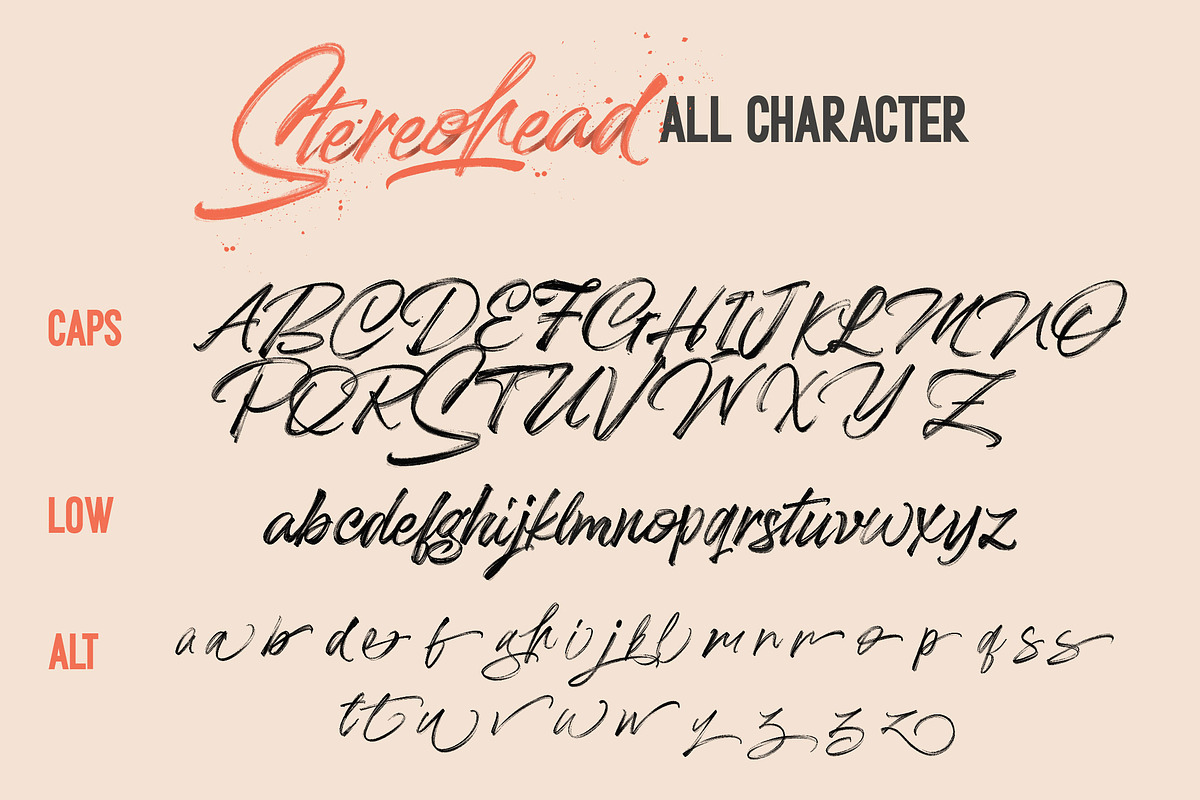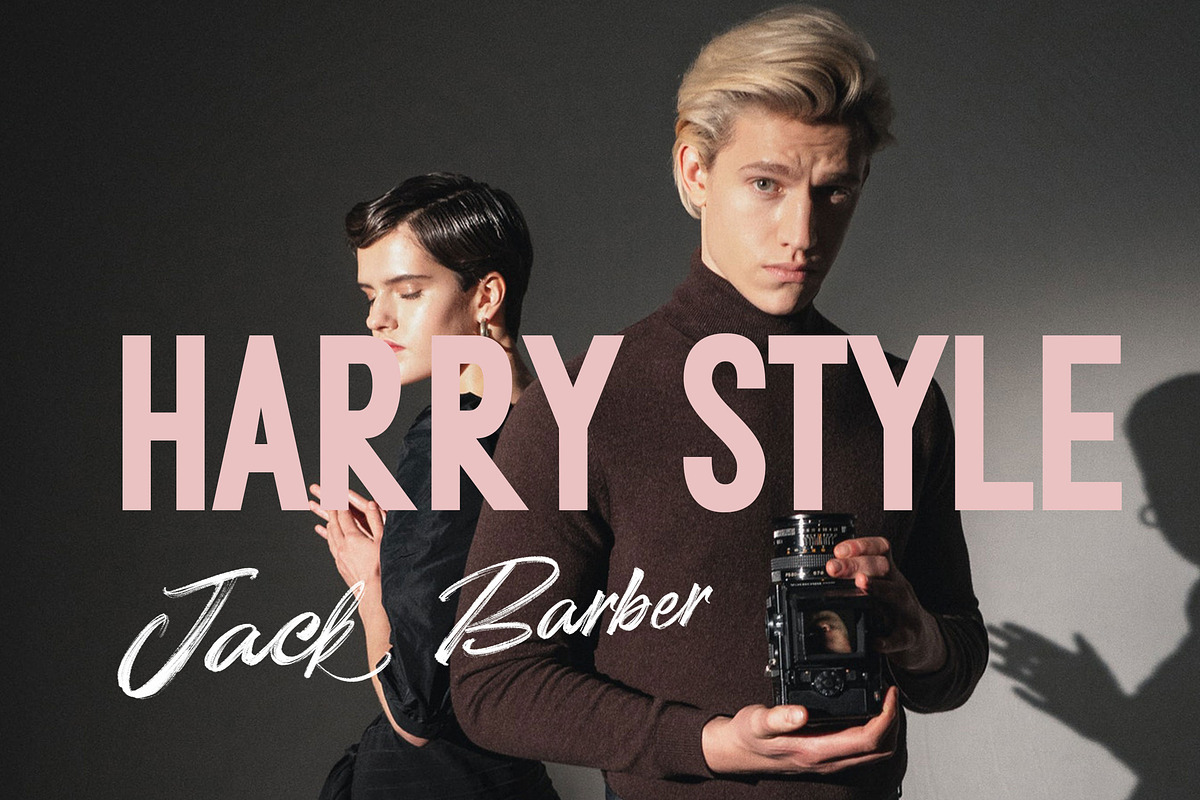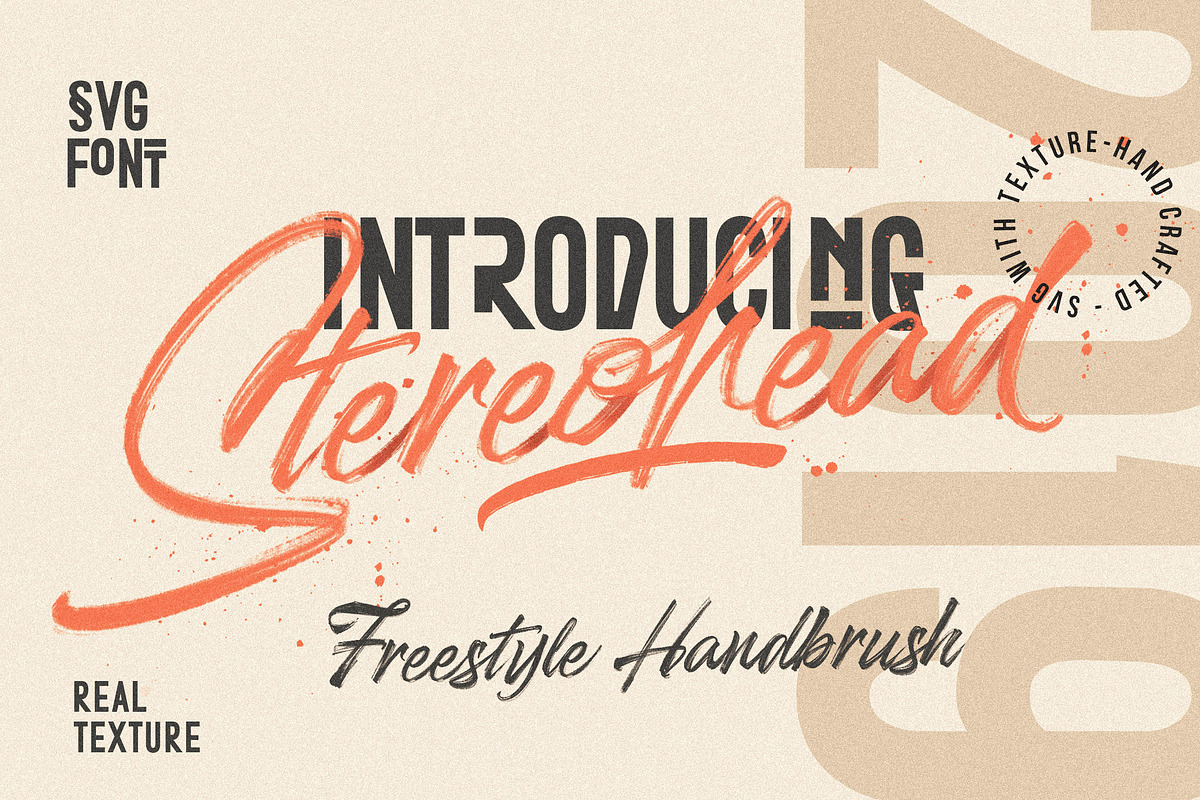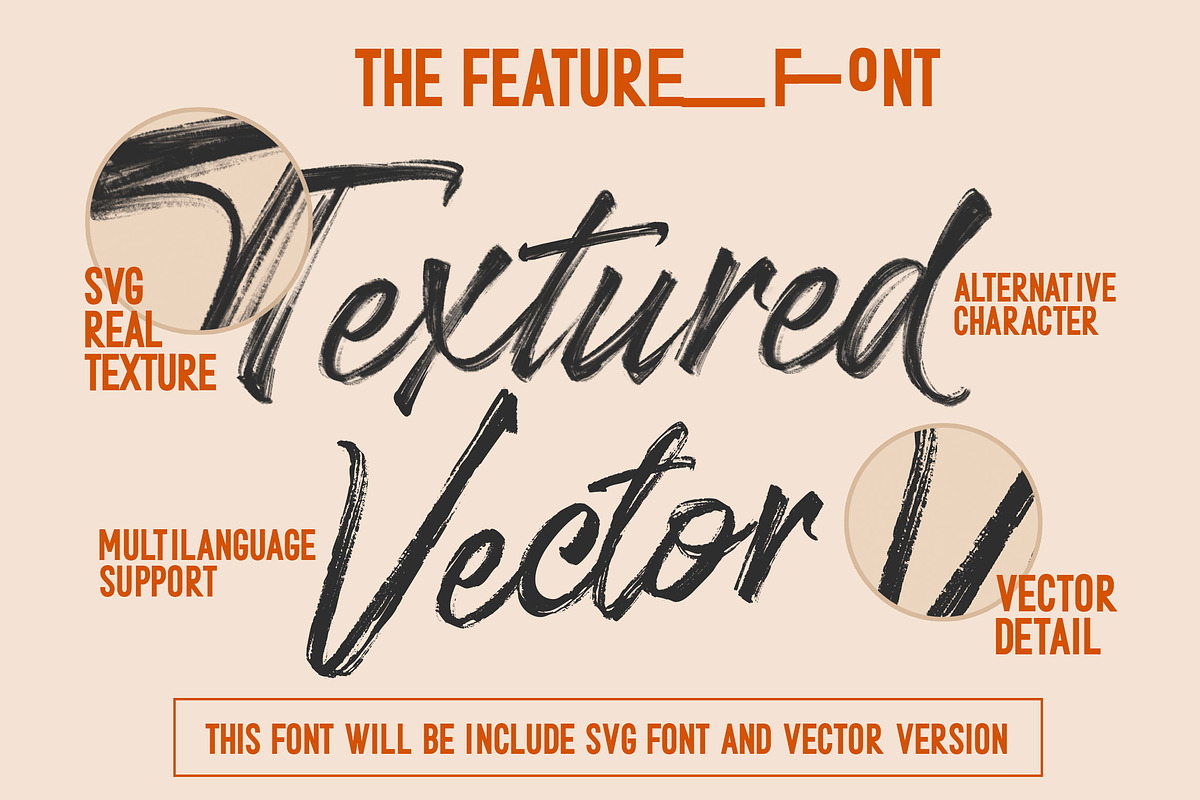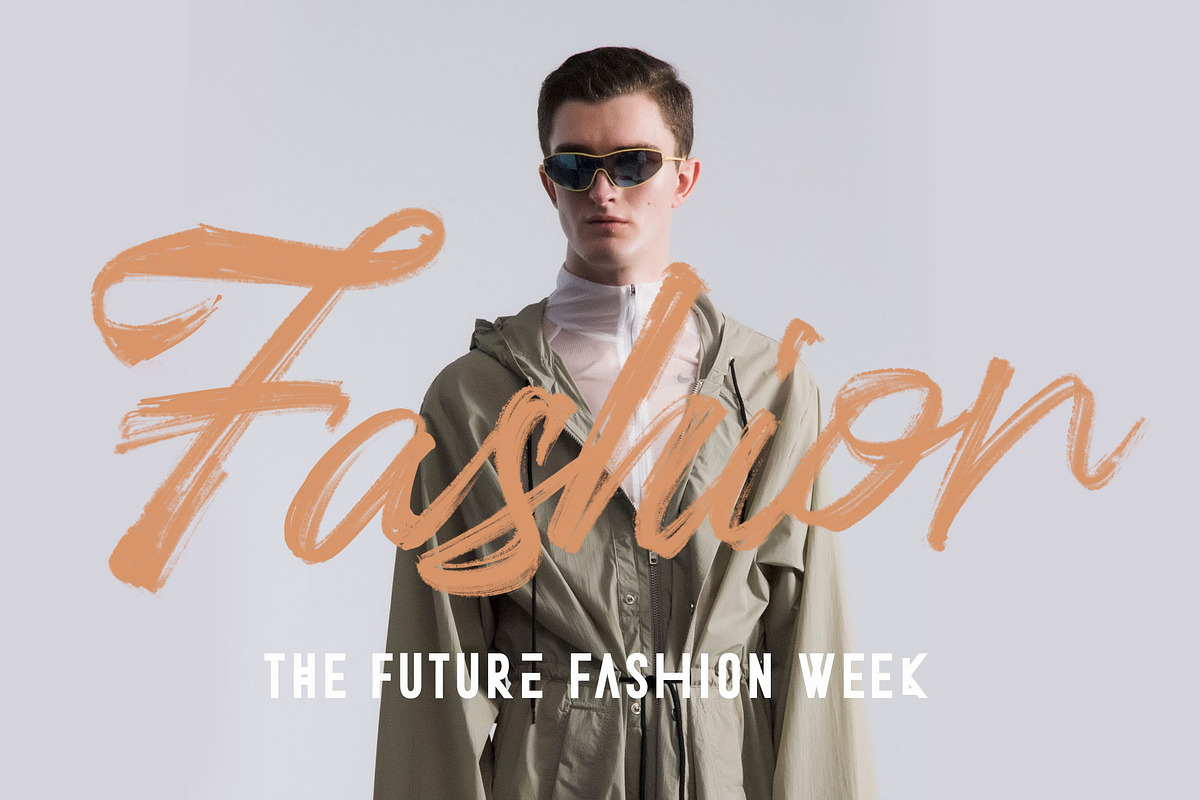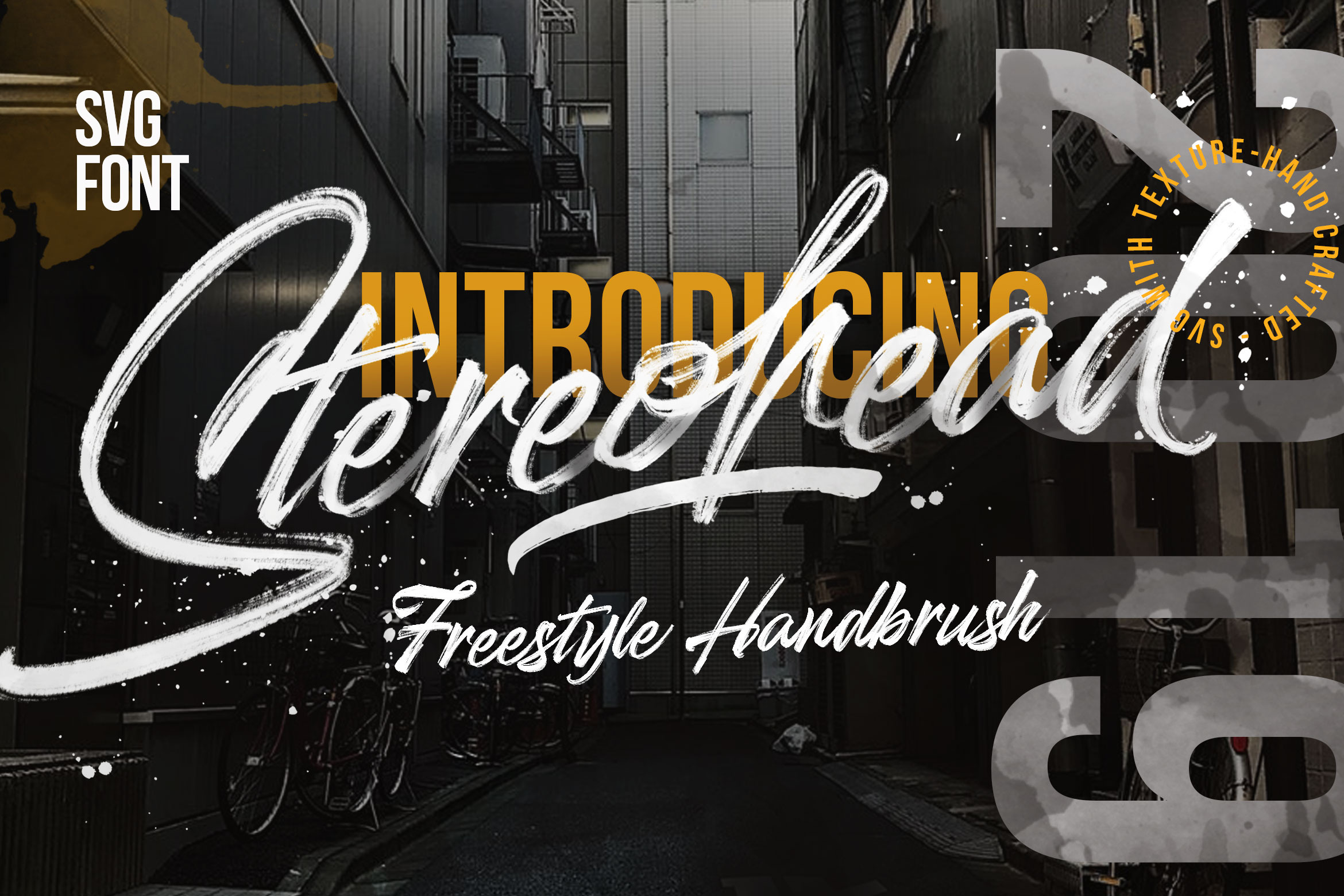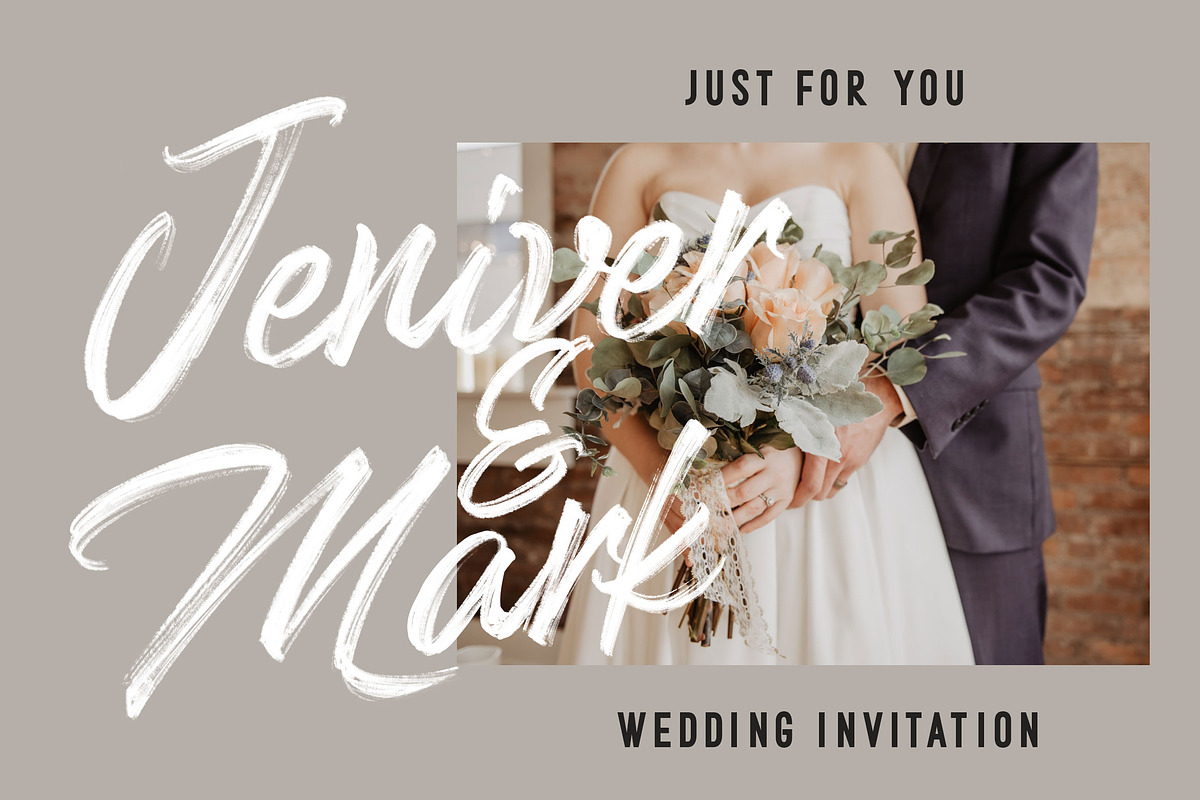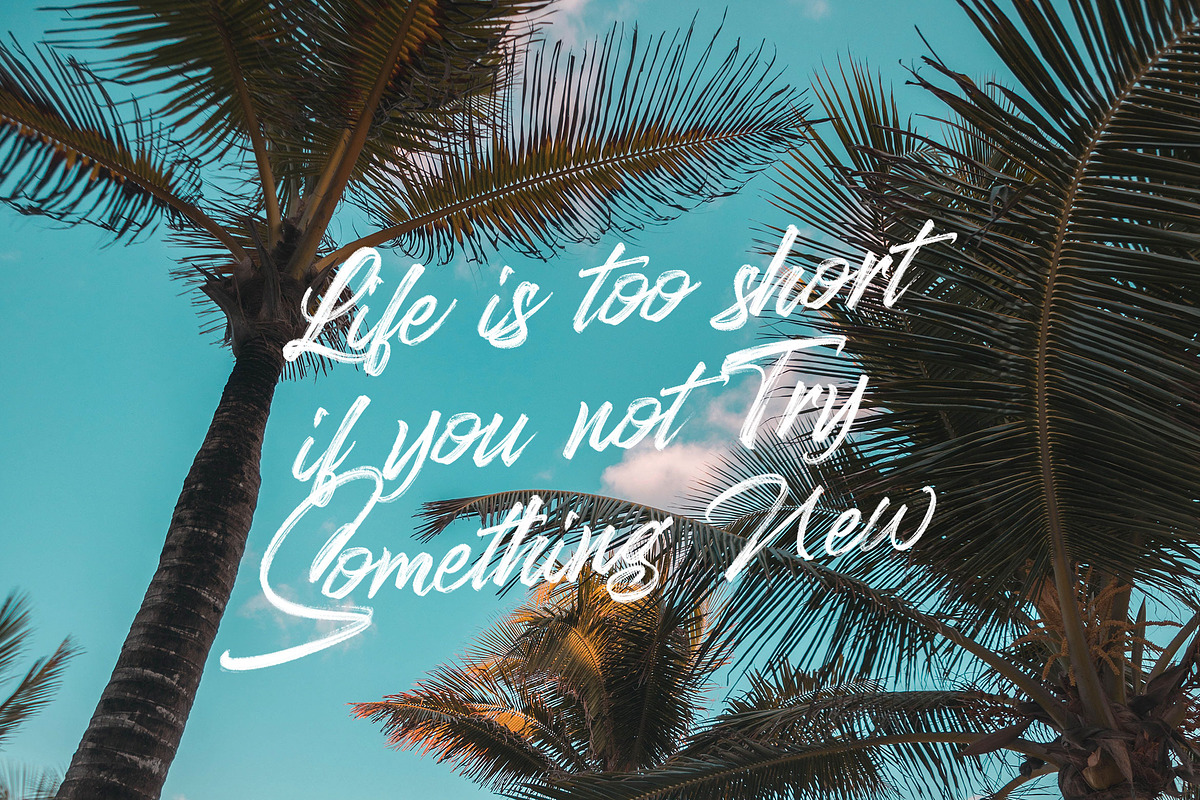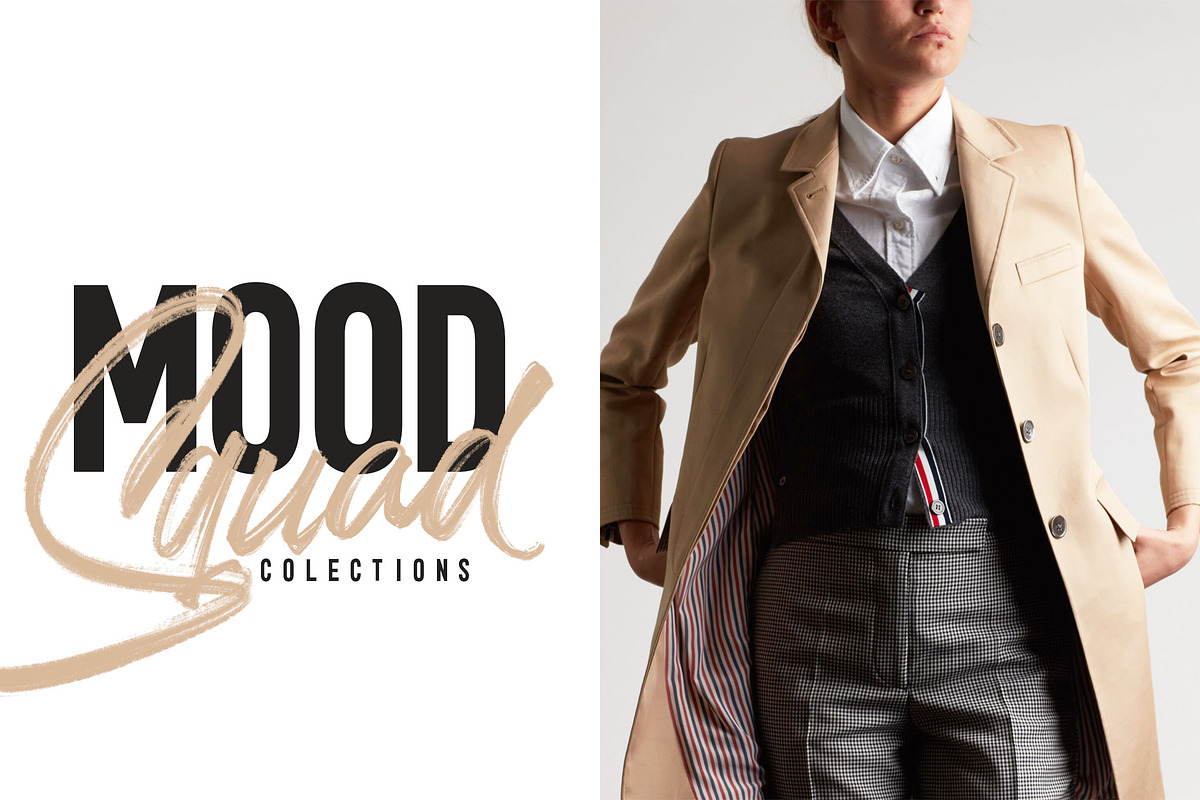
Stereohead Brush Font SVG
DETAILS Stereohead Brush is Stylist Brush SVG font with a real hand-painted wet brush look. Ideal for signature, logos, handwritten quotes, product packaging, header, poster, merchandise, social media & greeting cards.